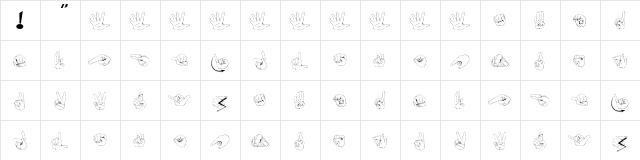
zoefingerabc Regular Regular
| Foundry | Tanja Schulz - ZOE - |
| Designer | Tanja Schulz - ZOE - |
Design Context for zoefingerabc Regular Typeface
zoefingerabc Regular is a composed and adaptable typeface that performs quietly and consistently across a wide range of design contexts.